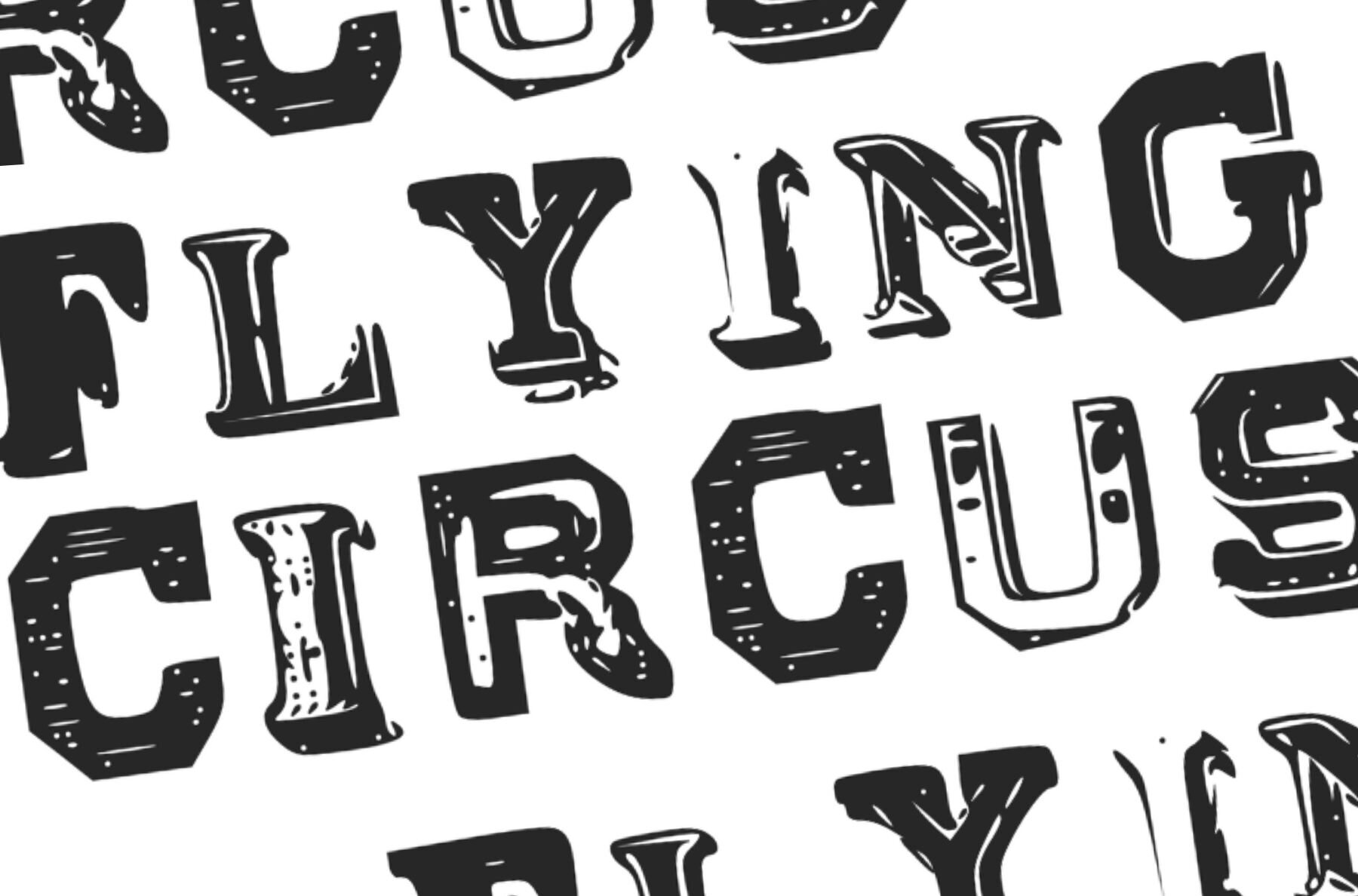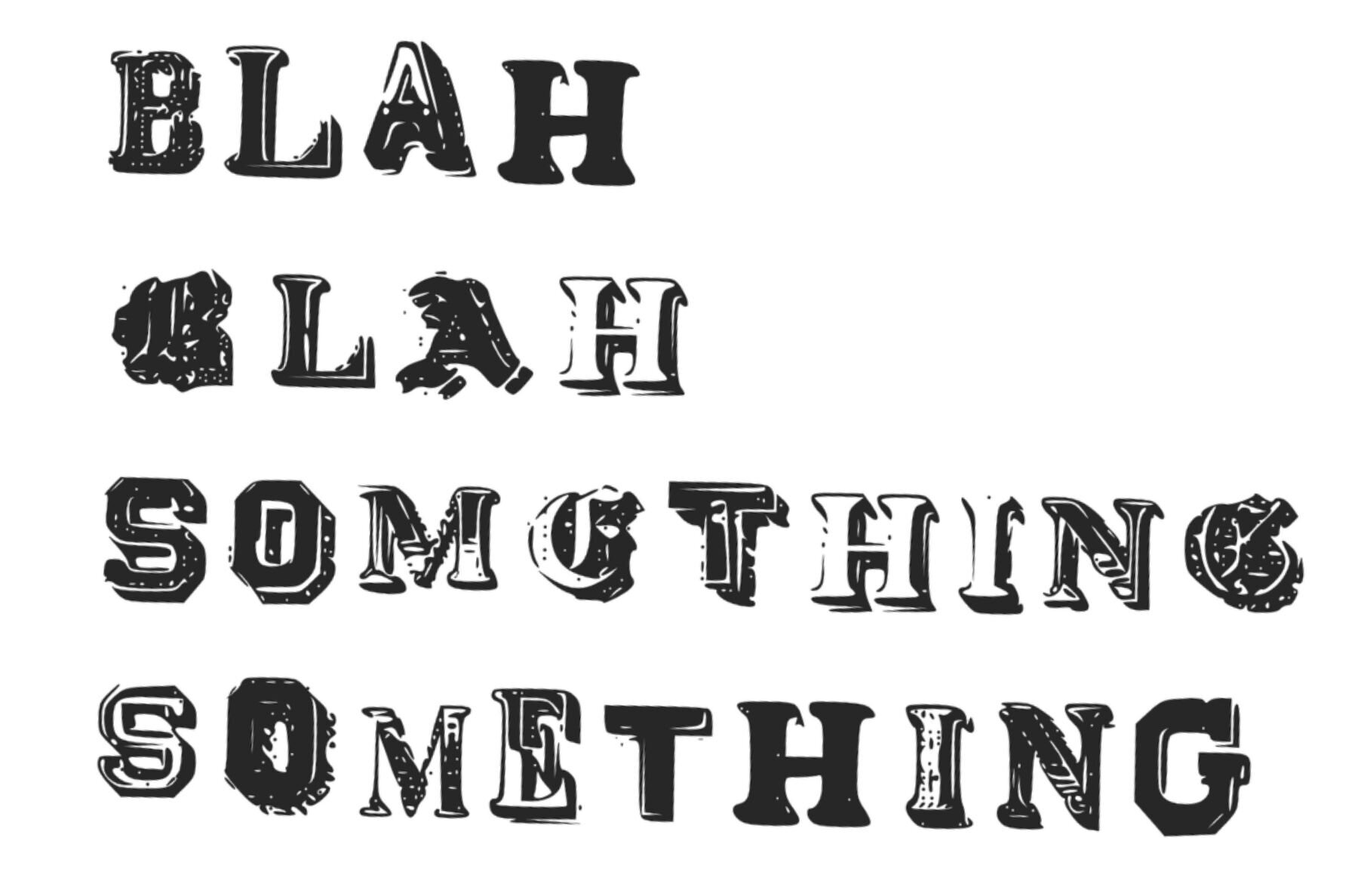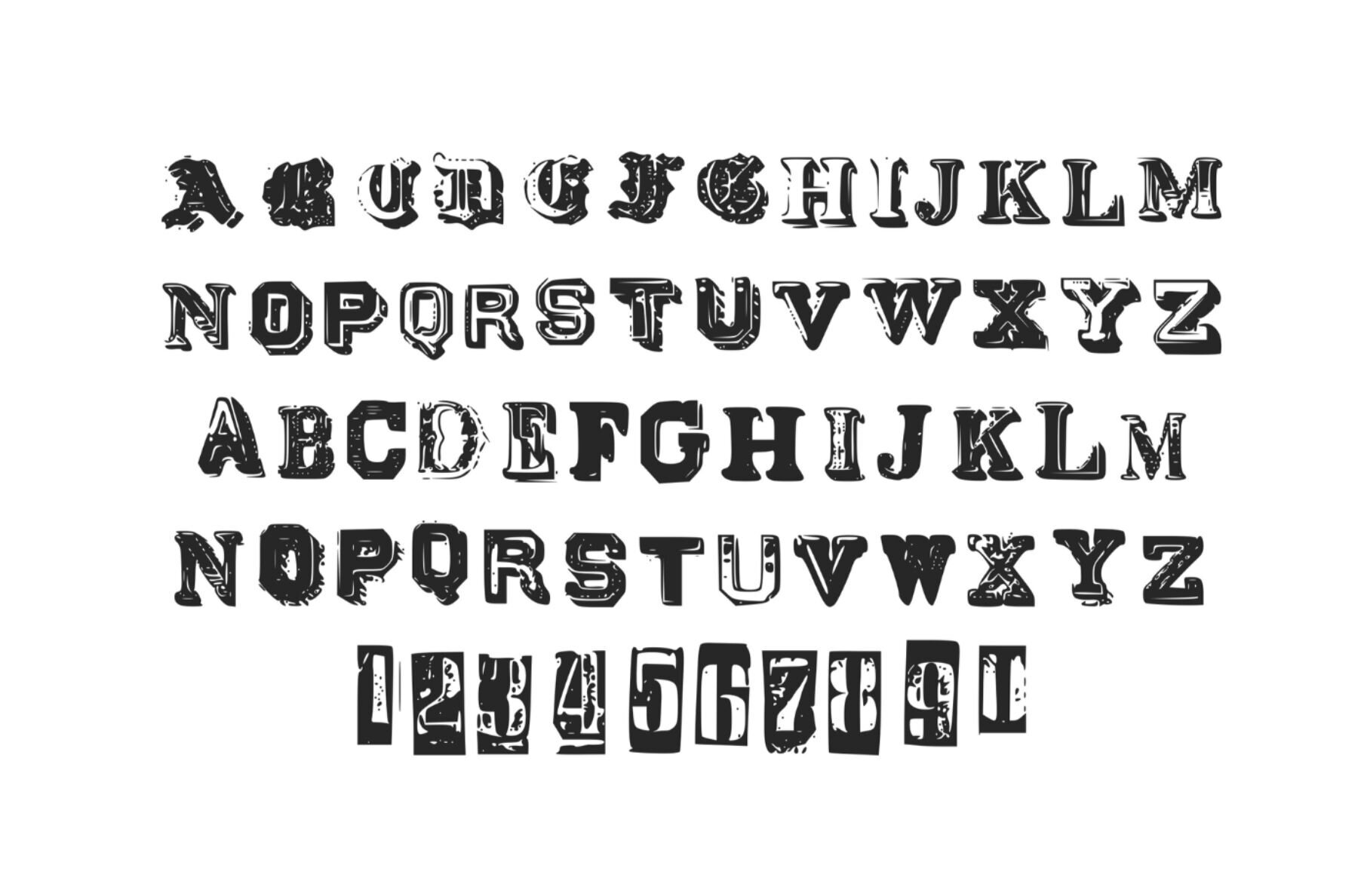
Flying Circus Font
Flying Circus Regular
Add a touch of whimsy and excitement to your design projects with the Flying Circus display font. Known for its lively and eccentric style, this font is sure to become a standout element in any creative endeavor. Flying Circus offers a unique flair that captures attention and sparks imagination, making it an essential addition to your font library.Flying Circus: A Whimsical Display Font
Why Choose Flying Circus?